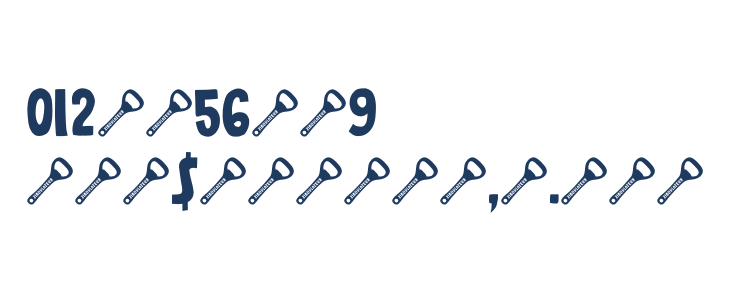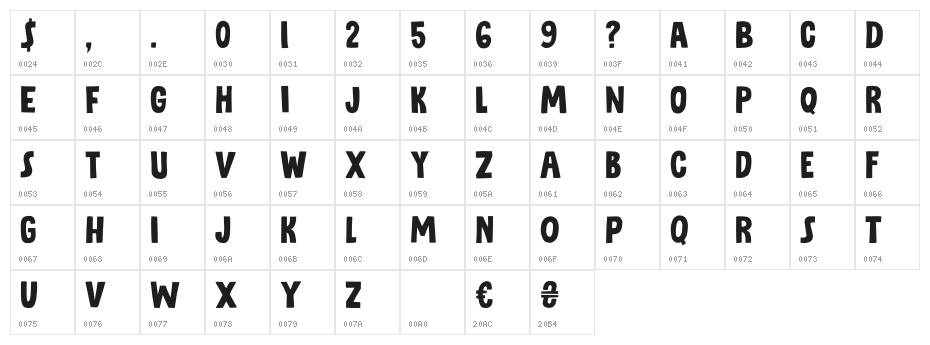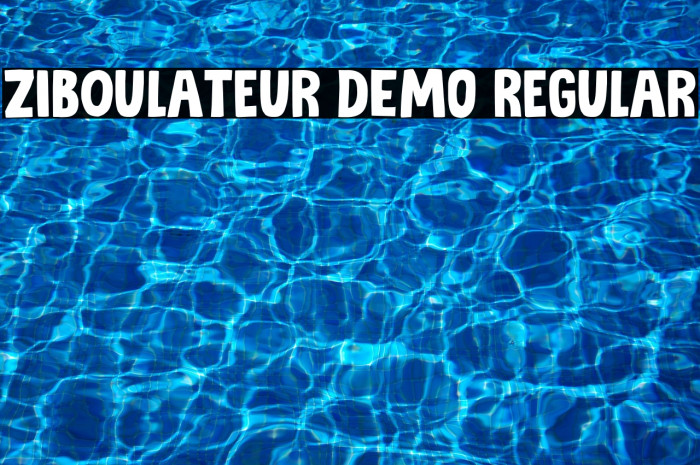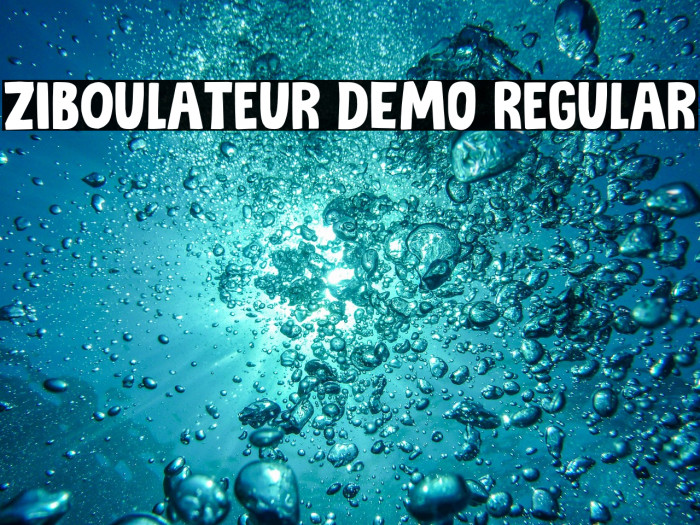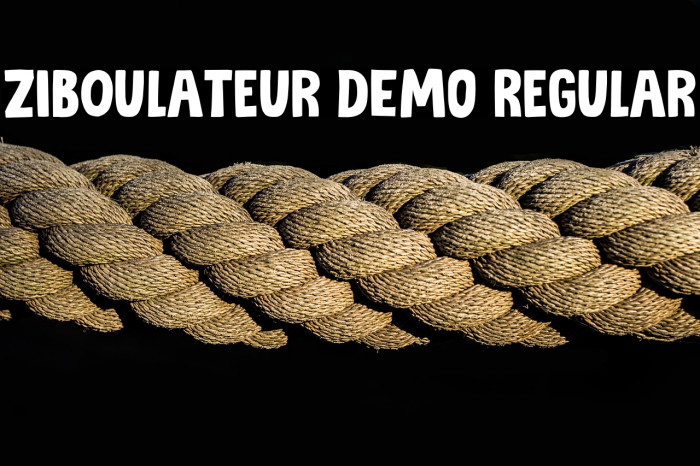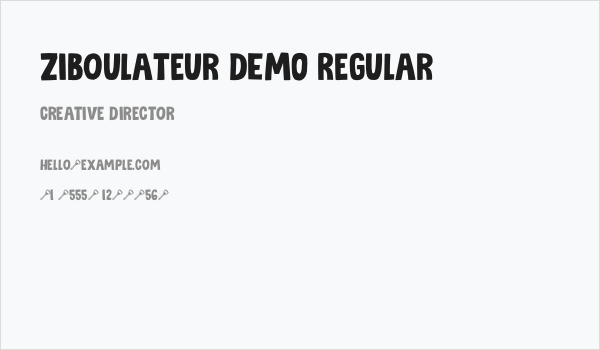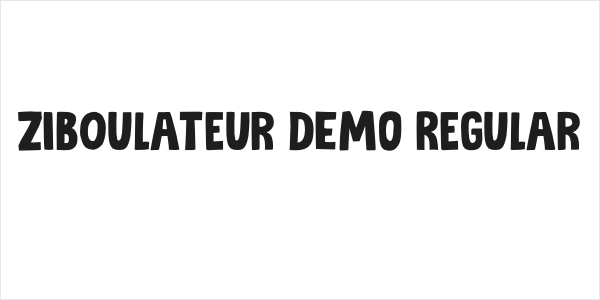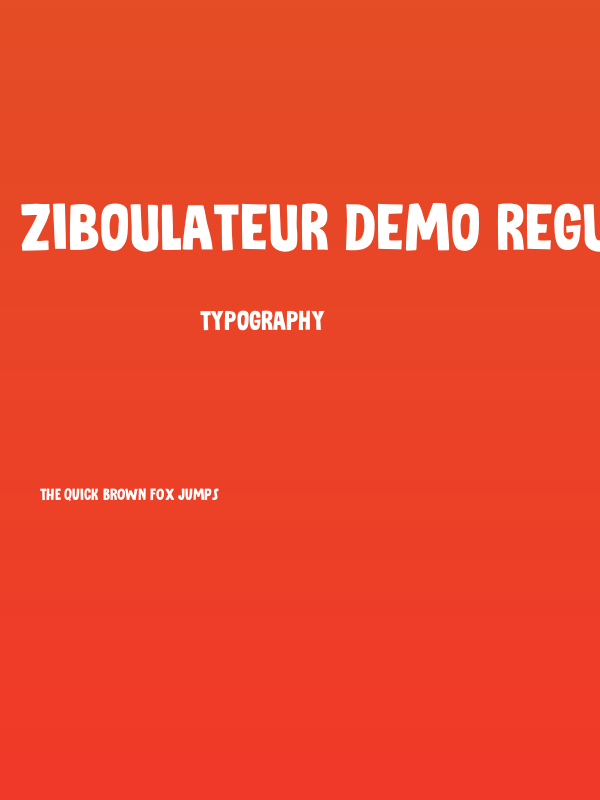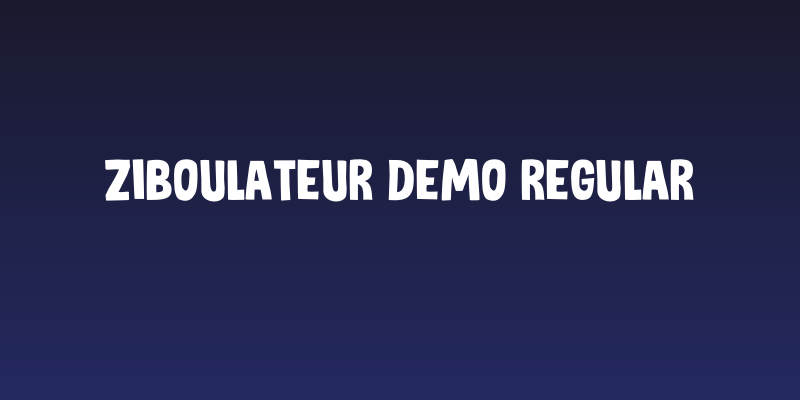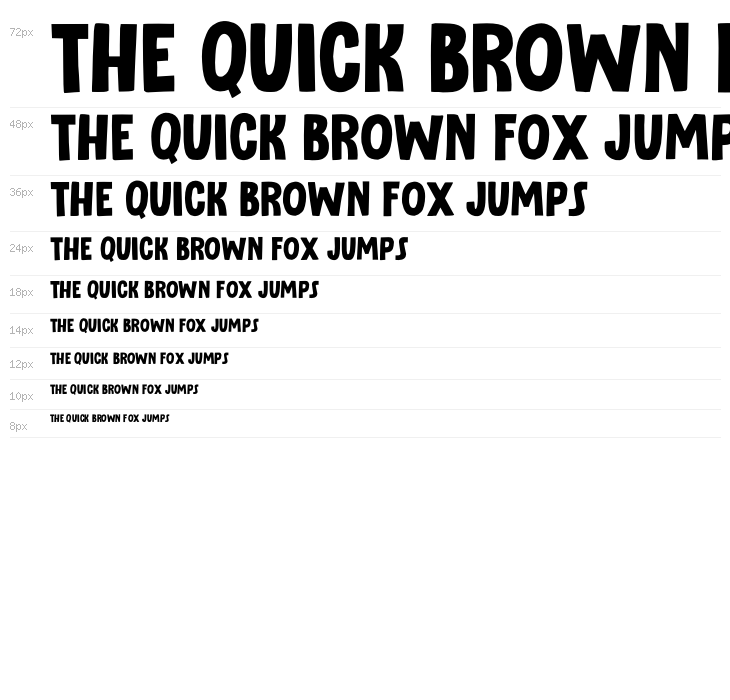
Ziboulateur DEMO Regular Font
Ziboulateur DEMO Regular Description
This font features bold, playful characters with a slightly irregular and hand-drawn appearance. The uppercase letters are prominent and have a whimsical, cartoon-like style, making them stand out with their thick strokes and rounded edges. The numbers and special characters maintain this playful aesthetic, with some characters incorporating unique design elements, such as the bottle opener shape. The overall design is eye-catching and suitable for creative and informal applications.
| Overall Style | Playful, Creative, Whimsical |
| Proposed Projects | Ideal for children's books, comic strips, playful branding, and creative posters. |